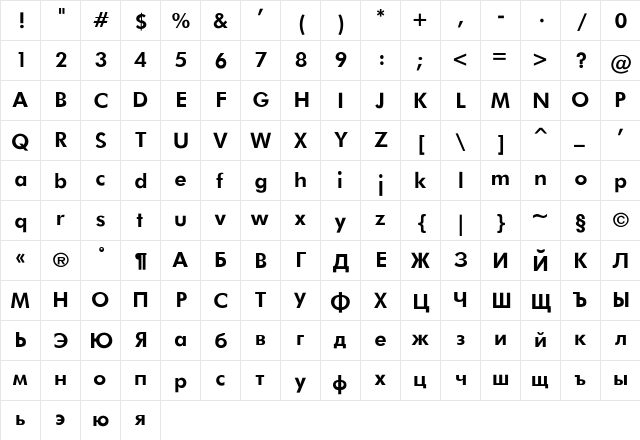
Futura_Book-Bold Regular
Futura_Book-Bold channels digital-age aesthetics through its sharp, structured letterforms — ideal for brands that want to signal innovation. Its bold stroke weight gives it real presence on the page.
Pro Tip: Try Futura_Book-Bold with generous letter-spacing in UI labels and navigation — the geometric forms benefit from room to breathe.